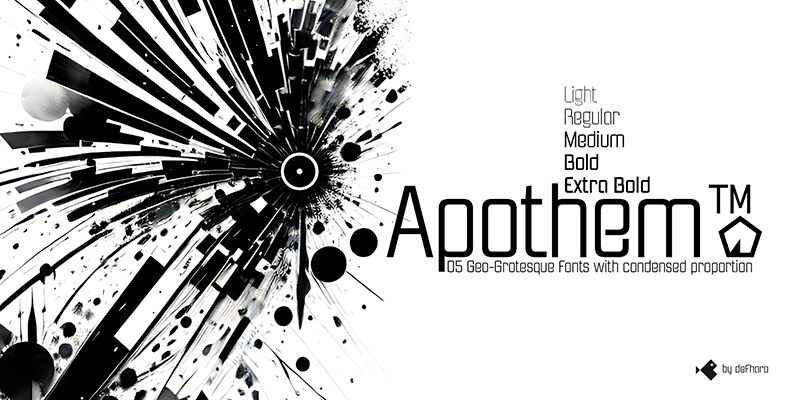
Apothem Bold, a captivating sans-serif font crafted by designer Fernando Haro of deFharo, exudes a striking, condensed aesthetic. With its bold, geometric forms and clean lines, this typeface radiates a distinct sense of strength and modernity. The angular, sharp edges and geometric shapes lend the font a unique, industrial-inspired character, making it an eye-catching choice for a wide range of design applications.
The versatility of Apothem Bold shines through its ability to seamlessly adapt to diverse design contexts. Its condensed width and robust, authoritative presence make it an excellent selection for powerful headlines, impactful branding, and attention-grabbing signage. Whether in the realm of corporate communications, editorial layouts, or contemporary packaging, Apothem Bold's distinctive personality is sure to leave a lasting impression.
Apothem is a very versatile condensed typeface, recommended for a wide range of applications. From the composition and design of publications, brochures, posters or signage to the creation of logos, product packaging, signage or corporate image, elevating any project to a higher level. Its coherence and geometric elegance provide a distinctive and professional character to any design work.